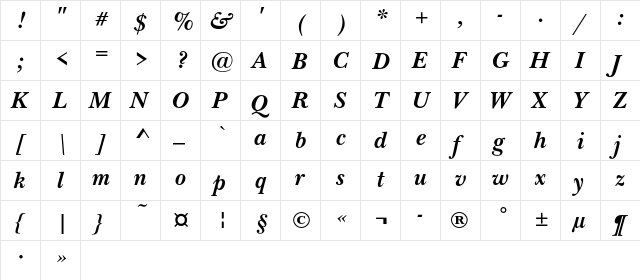
NewBaskervilleExpOdC Bold Italic
NewBaskervilleExpOdC is a composed and adaptable typeface that performs quietly and consistently across a wide range of design contexts. The slanted form adds forward momentum and visual energy. Its bold stroke weight gives it real presence on the page.
Pro Tip: Try NewBaskervilleExpOdC for annotation and caption copy alongside an upright companion — the contrast in angle creates a dynamic but ordered typographic system.